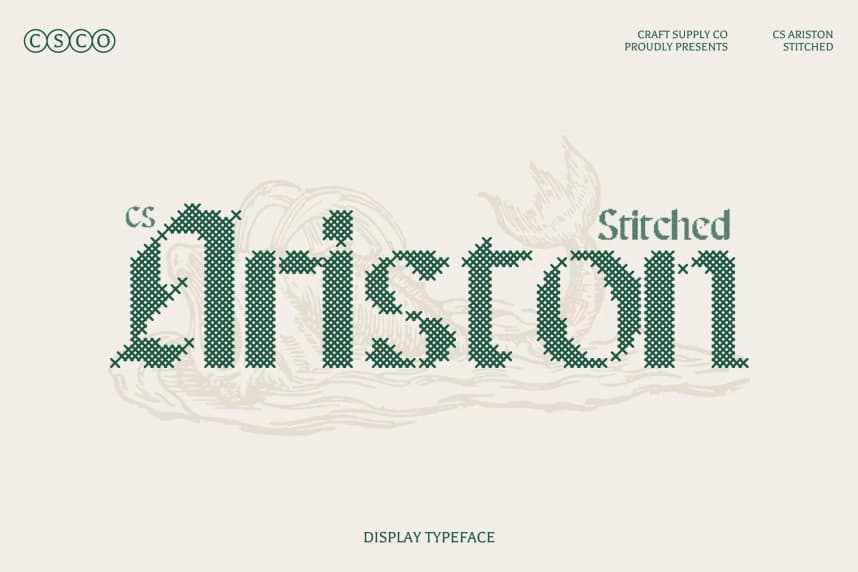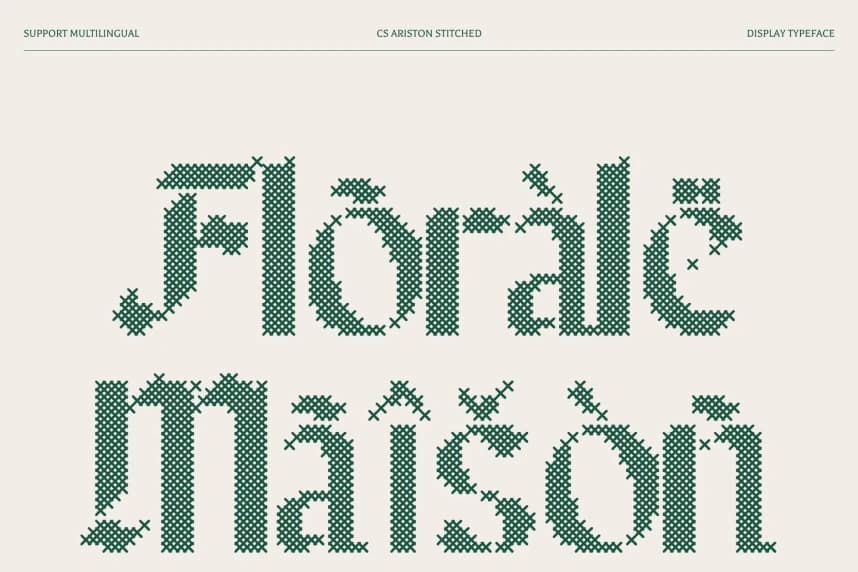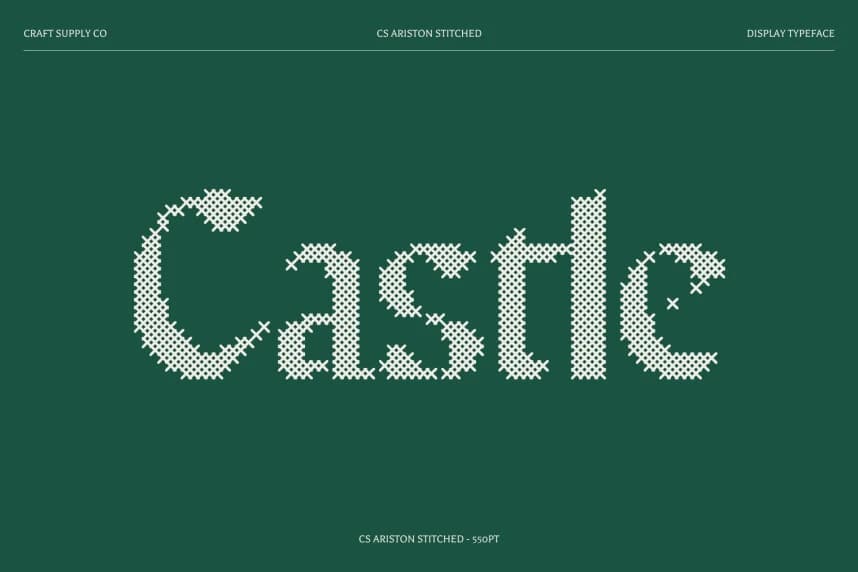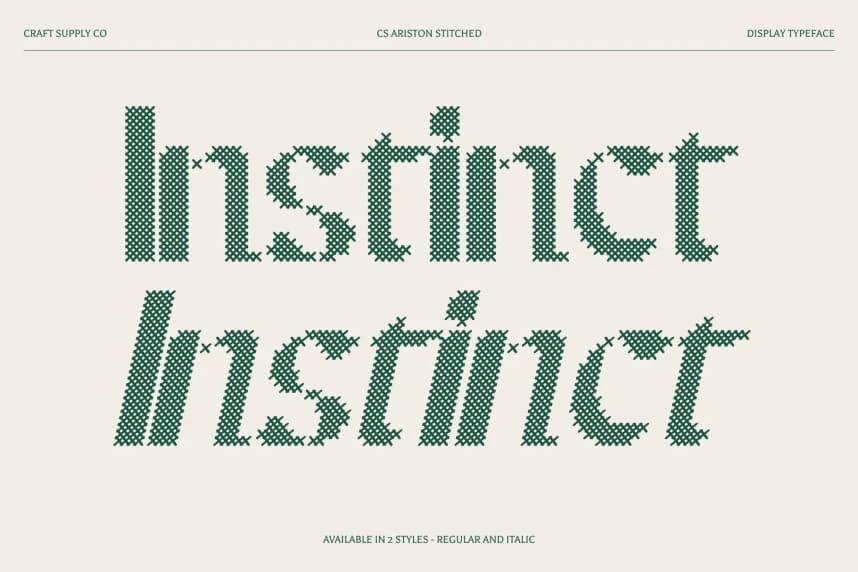
CS Ariston Stitched Font
CS Ariston Stitched Font – Blackletter Font: Where Tradition Meets Bold Elegance Classic Blackletter with Handcrafted Depth. This is a display serif font that embodies the timeless elegance of the Blackletter tradition.